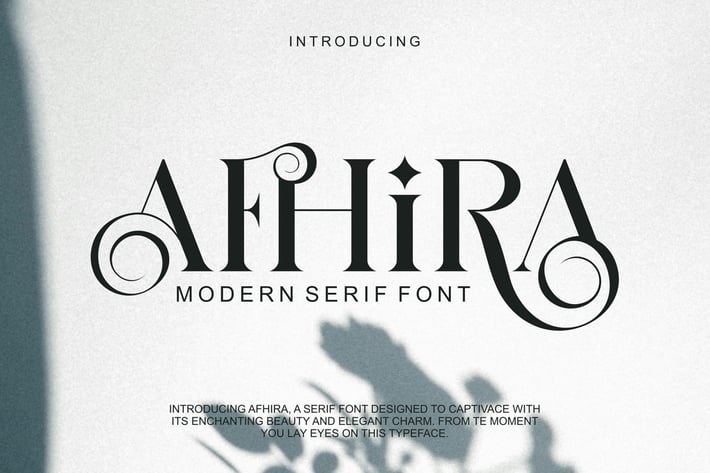
Afhira Modern Serif Font
Afhira Modern Serif Typeface inspired by the famous minimalist logo perfect for the purposes of designing templates, brochures, videos, advertising branding, logos, invitation, layout design, elegant crafting, beauty design and other